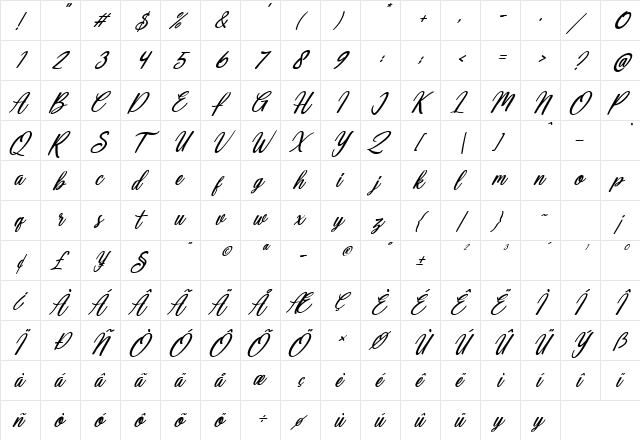
Deallisa Italic
Design Context for Deallisa Typeface
Deallisa is a composed and adaptable typeface that performs quietly and consistently across a wide range of design contexts. Its italic angle brings a sense of urgency and motion to the letterforms.
Pro Tip: Try Deallisa for annotation and caption copy alongside an upright companion — the contrast in angle creates a dynamic but ordered typographic system.